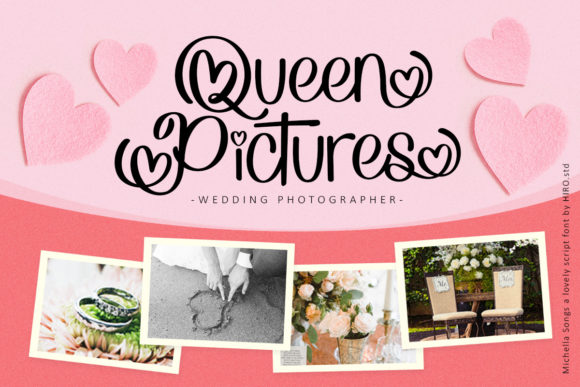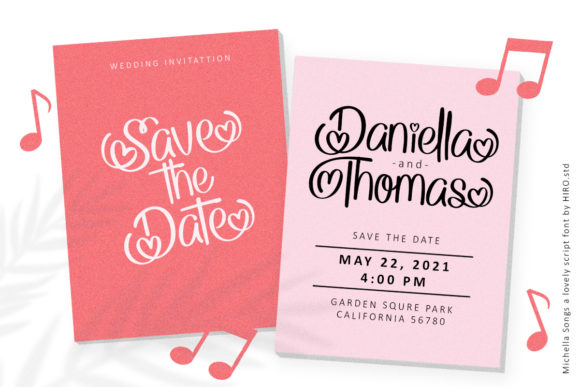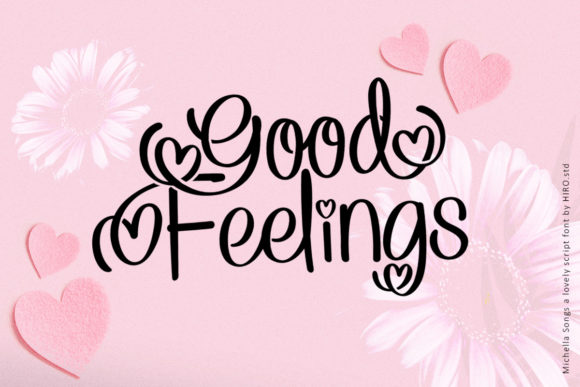
Introduction to Michella Songs Font
Have you ever been working on a creative project and stumbled upon that perfect font that elevates your design to a whole new level? For me, that moment came when I discovered the Michella Songs Font. Its enchanting handwritten style is like a breath of fresh air, adding a touch of romance and whimsy to any project.
As a designer, I can attest that finding the right font can make all the difference in bringing your vision to life. The Michella Songs Font is a high-quality design resource that’s perfect for adding a personal touch to your creative projects. Whether you’re working on a greeting card, a headline, or a branding project, this font is sure to impress. And the best part? It’s available for free download, making it an invaluable asset for any designer.
With its PUA encoded glyphs and swashes, the Michella Songs Font is incredibly versatile, allowing you to access all the beautiful elements with ease. Plus, its transparent background makes it easy to customize and integrate into your design. In this article, we’ll dive deeper into the world of Michella Songs Font and explore its many applications and benefits.
Key Features of Michella Songs Font
- High-quality, professional font suitable for creative projects, including music and art designs.
- Transparent background, making it ideal for use on images and videos with transparent or semi-transparent overlays.
- Designed to be versatile, with a wide range of applications, from music lyrics to album artwork.
- Includes a range of font sizes, from 12 to 72 points, with high resolution (300 DPI) for crisp and clear display.
- Perfect for designers and artists looking for a unique and creative design resource.
- Easy to use and customize, with a simple and intuitive design that adapts well to various creative projects.
Honest Review: Michella Songs Font
I recently had the chance to experiment with the Michella Songs Font, and I must say it’s been an interesting experience. As a designer, I’m always on the lookout for high-quality design resources that can elevate my creative projects. In this review, I’ll share my thoughts on what works well and where it falls short.
- Unique aesthetic: Michella Songs Font boasts a distinctive, hand-drawn feel that sets it apart from more generic font options.
- Transparent background: The font’s transparent background makes it easy to layer over images or other design elements.
- Limited character set: The font’s character set is somewhat limited, which may make it less versatile for certain design projects.
- Not suitable for body text: Due to its cursive nature, Michella Songs Font may not be the best choice for large blocks of body text.
Overall, Michella Songs Font is a great addition to any designer’s toolkit, particularly for creative projects that require a unique, handwritten feel. While it may have some limitations, its free download and transparent background make it a valuable design resource.
How to Use Michella Songs Font
The Michella Songs Font is a versatile and high-quality design resource ideal for creative projects. Its transparent background makes it perfect for overlaying on images or using as a standalone element.
Tips for Getting the Most Out of Michella Songs Font
To get the most out of the Michella Songs Font, experiment with different font sizes, colors, and combinations with other design elements. You can also use it to create eye-catching titles, headings, and quotes.
The Michella Songs Font is perfect for:
– Music-related projects, such as album art, posters, or social media graphics.
– Creative quotes, sayings, or phrases for social media or blog posts.
– Designing custom invitations, flyers, or brochures.